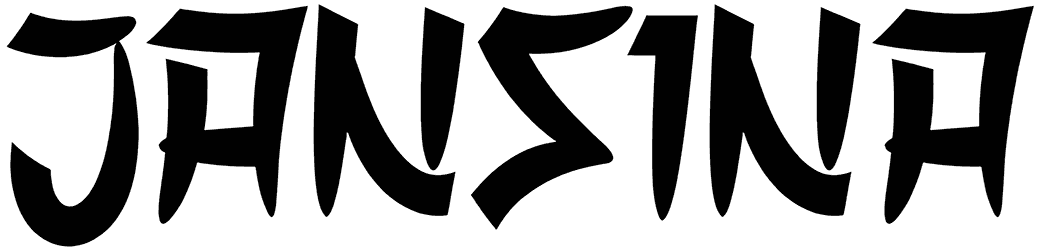
Jansina Font
Your design will be more impressive if you use a salient letterform for its words, and this Asian font is a distinct option for your traditional project. Jansina font covers almost all characters, and you can benefit from them for different layouts, such as a movie title. This Japanese font will throw a cool feeling into your design and grab a lot of attention.